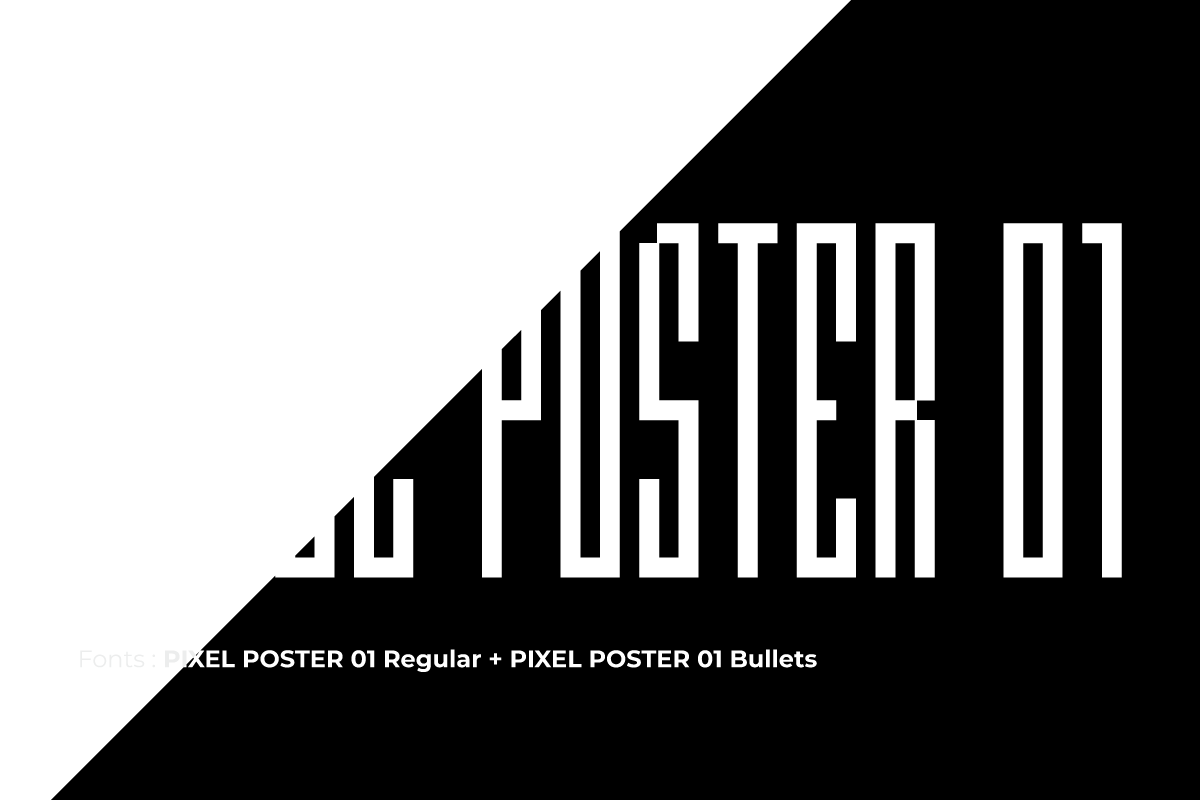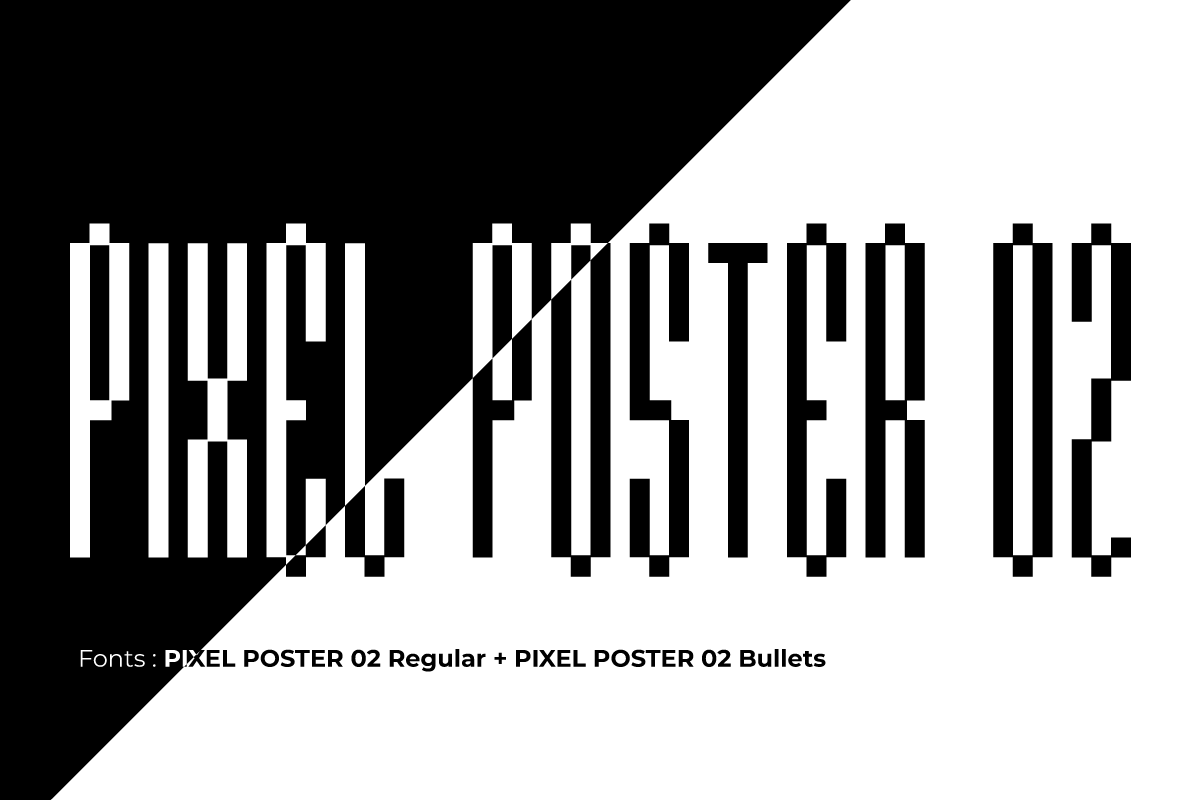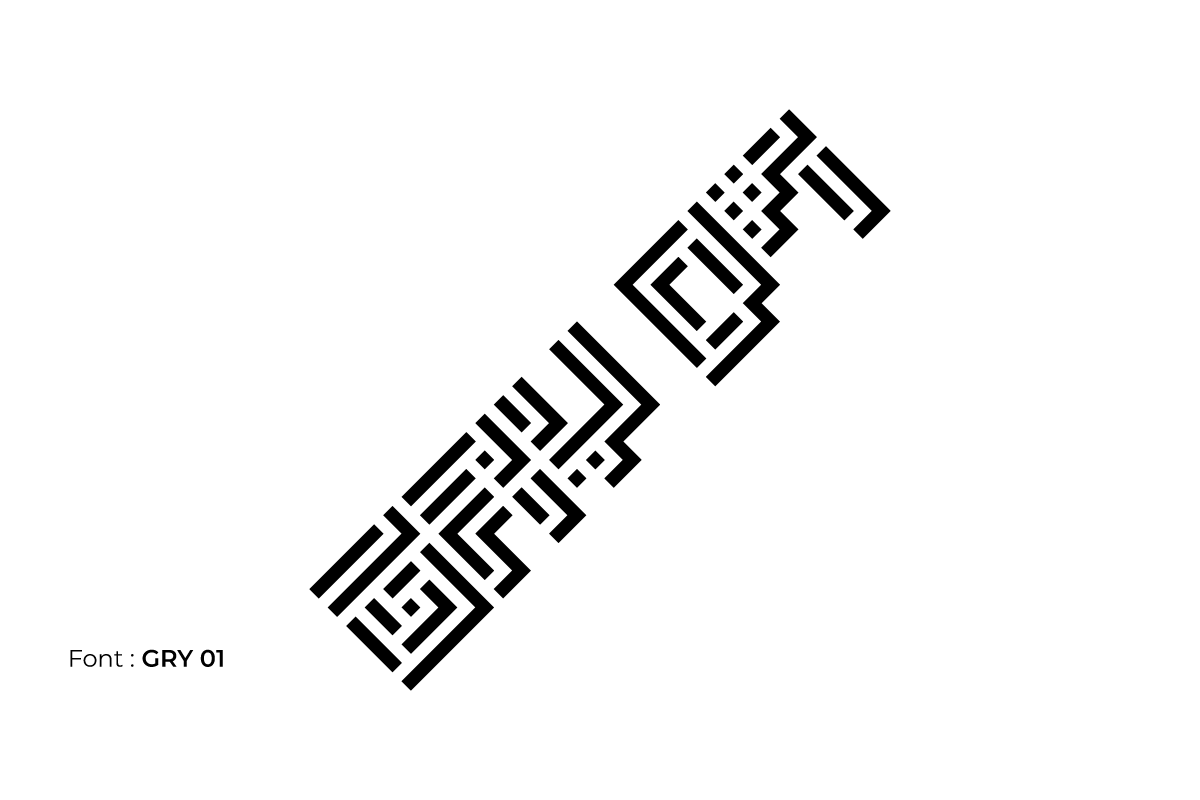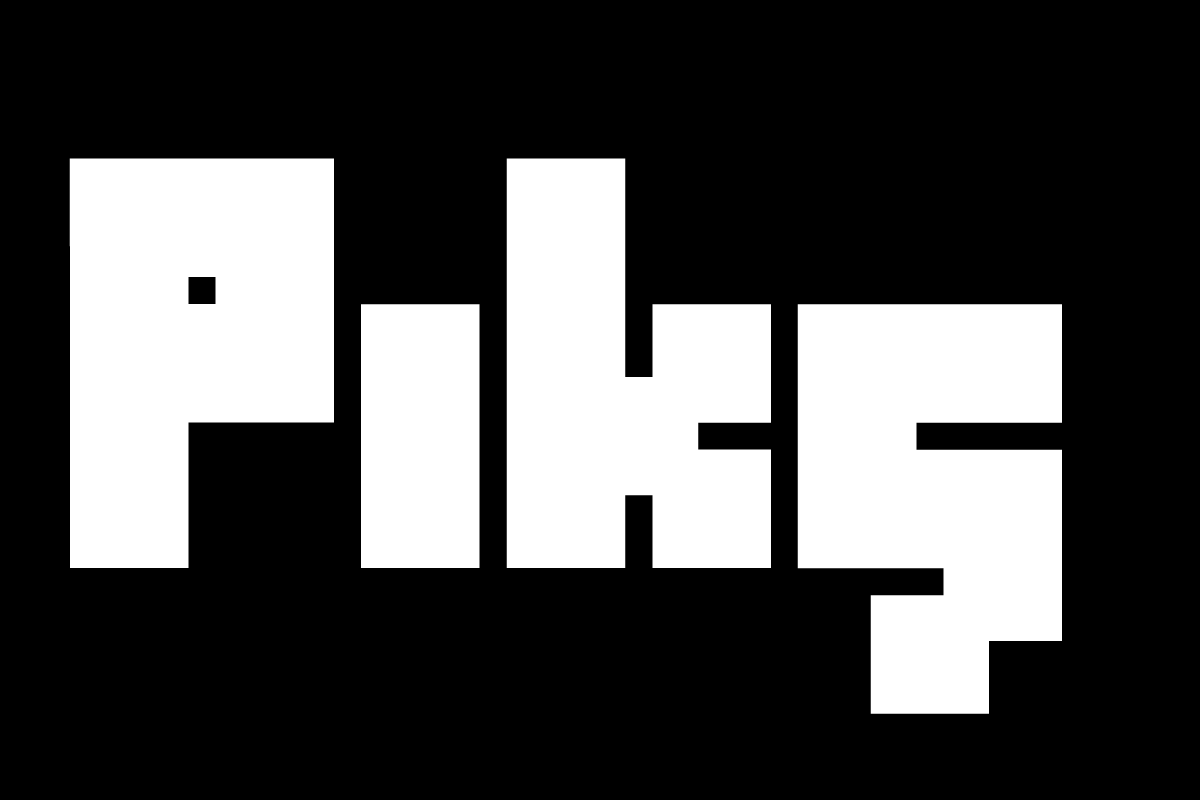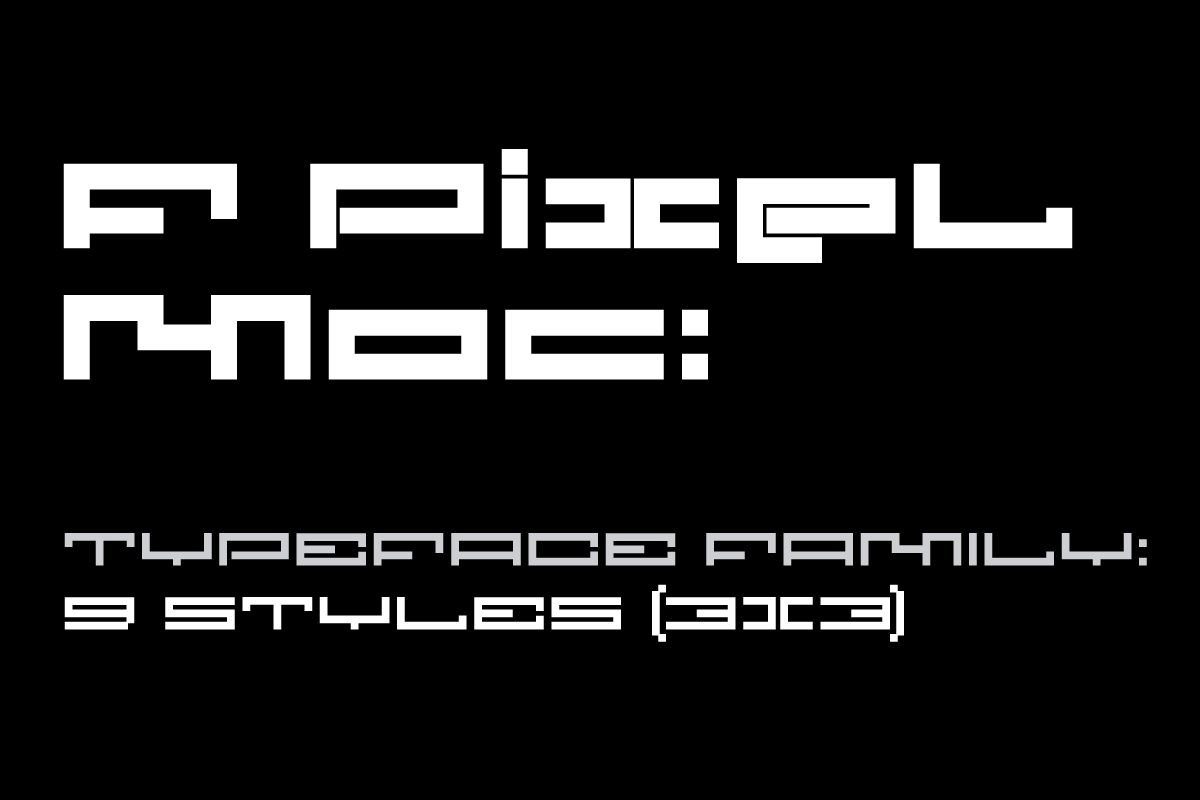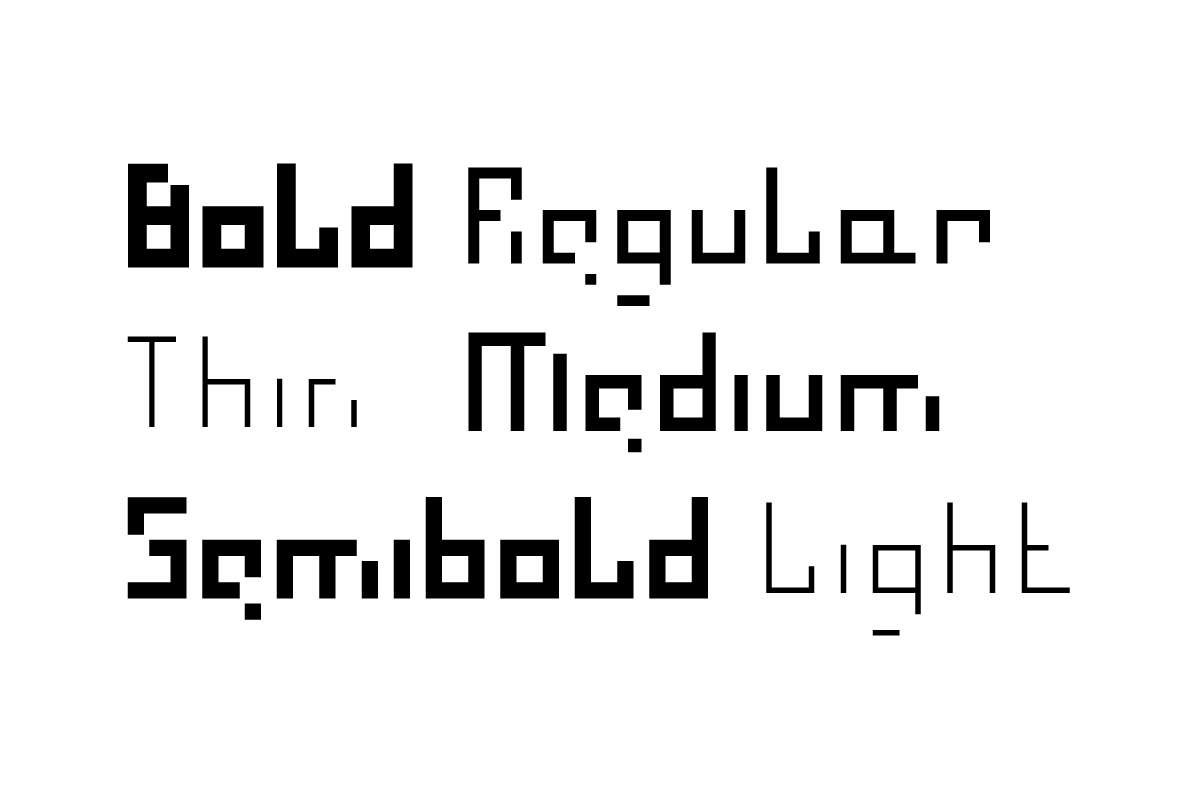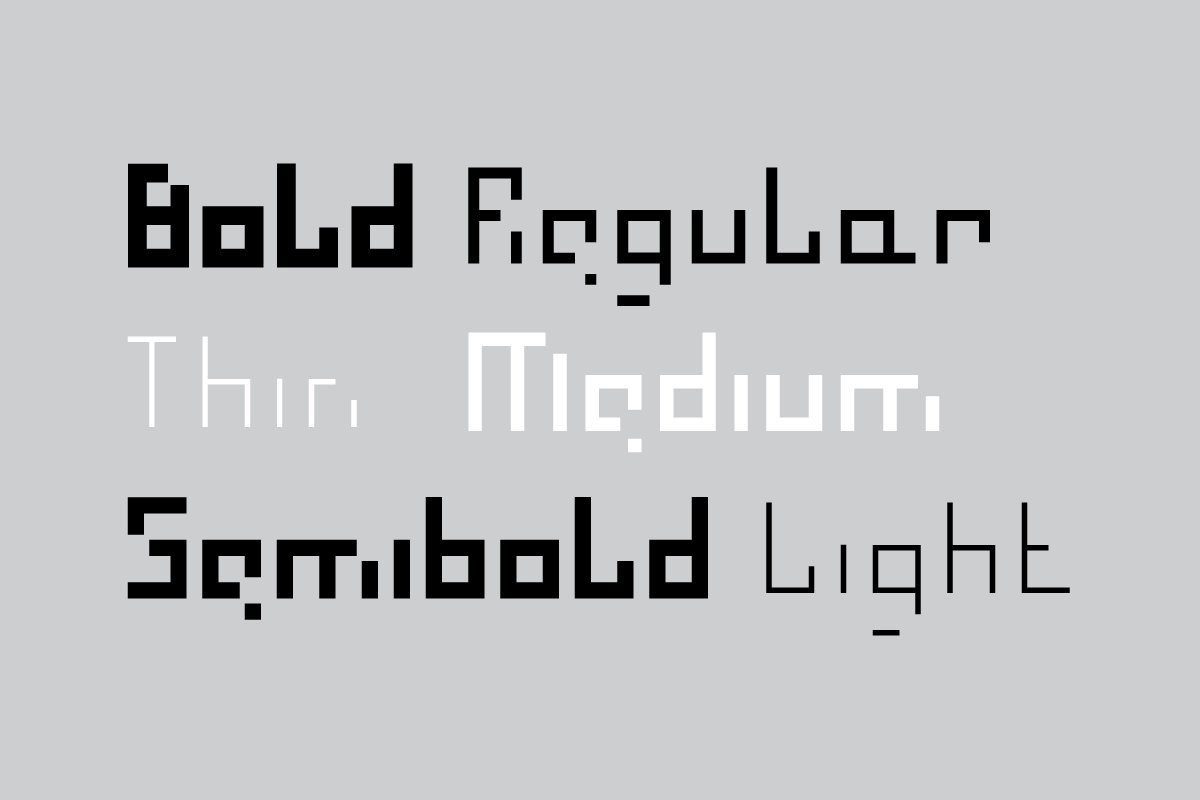
F Pixel Rounded is a geometric display typeface family with a futuristic, digital...
Piksel Core is a functional pixel type family built on a strict square grid, focusing...
F Pixel Moc is an expansion of the F Pixel universe, created for designers who need a stronger...
Piksel Core Mad is an experimental pixel typeface built on a strict square grid...
F Pixel – A Geometric Pixel Typeface Family (FREE Style). Minimalist, futuristic, and...
The Gry Font Family by Fontsphere stands out with its pixel-art design, crafted...
Pixel Poster 02: Pushing the Boundaries of Pixel Art with a Futuristic...
Gra 01 and Gra 02 are bold, geometric pixel fonts that push the boundaries...
Pixel Poster 01 is a pixelated display typeface that evokes a sense of...
DORIS is a stunning new font designed to add a touch of sweetness and charm to...
DIGOT 03 is an innovative two-font family that blends minimalism and geometric precision to...
GRANE is the brother of GRAJ and is a minimalist, geometric font. It has...
GRAJ is a minimalist, bitmap font with a unique pixel style. It features...
Digot 02 is a pixel-style, grid-based, display typeface. This is another version of Digot typeface. Compared to...
Film P3 - Ultra Condensed sans serif typeface. It refers to characteristic...
DIGOT is a pixel-style, grid-based, geometric, display typeface. The idea.....
Pixeloza 03 Regular & Pixeloza 03 Skewo - Pixel-style, grid based, display typeface...
Pixeloza 02 & Pixeloza 02 Skewo (Free) - pixel-style, grid-based, display typeface...
Pixeloza 01 & Pixeloza 01 Skewo - pixel-style, grid-based, display typeface...
PROSTY is a family of minimalistic and geometric fonts. It follows the style of......
Film-P2 is an Ultra Condensed sans serif display typeface. The entire.....
JUBY is a minimalist font family with a geometric and sophisticated look......
JUBY Rounded – heavy, visible and distinctive display font, rounded brother of the...
LOGX-30 is a geometric, display typeface. As a brother of .....
LOGX-20 is a geometric, all-caps, display typeface. This is the brother of the .....
STREETERS was a font created for a specific project, where...
LOGX-10 is a geometric minimalistic all-caps display typeface .....
BAJT Rounded is a futuristic all-caps display font with geometric......
Film Poster is an ultra condensed sans serif display typeface.....
CUFEL is a futuristic all-caps display typeface with geometric forms. .....
BAJT Font - Use this pixel font for awesome display, illustrations, posters, logos .....
SUSHI Font - Unique Sushi Font containing uppercase characters, numerals and.....
Experimental font for use in eye-catching illustrations, posters, t-shirts, custom graphics and many other custom...
Quite experimental font. Use for awesome display, illustrations, posters, t-shirts, custom...
CYLINDER Font - Containing uppercase characters, numerals and a.....